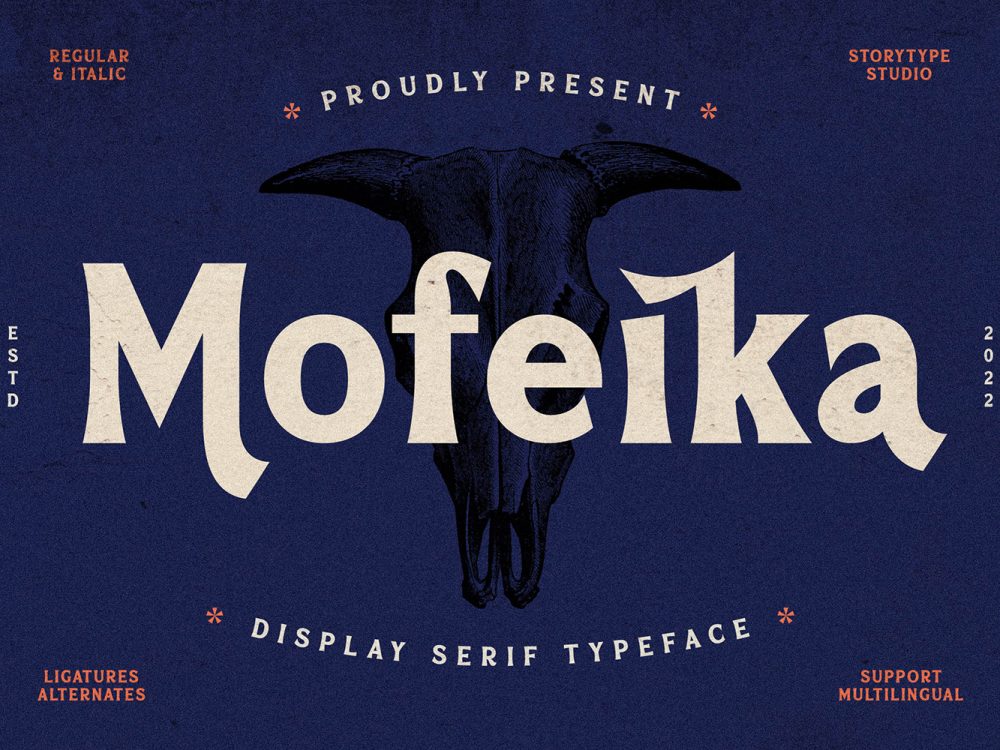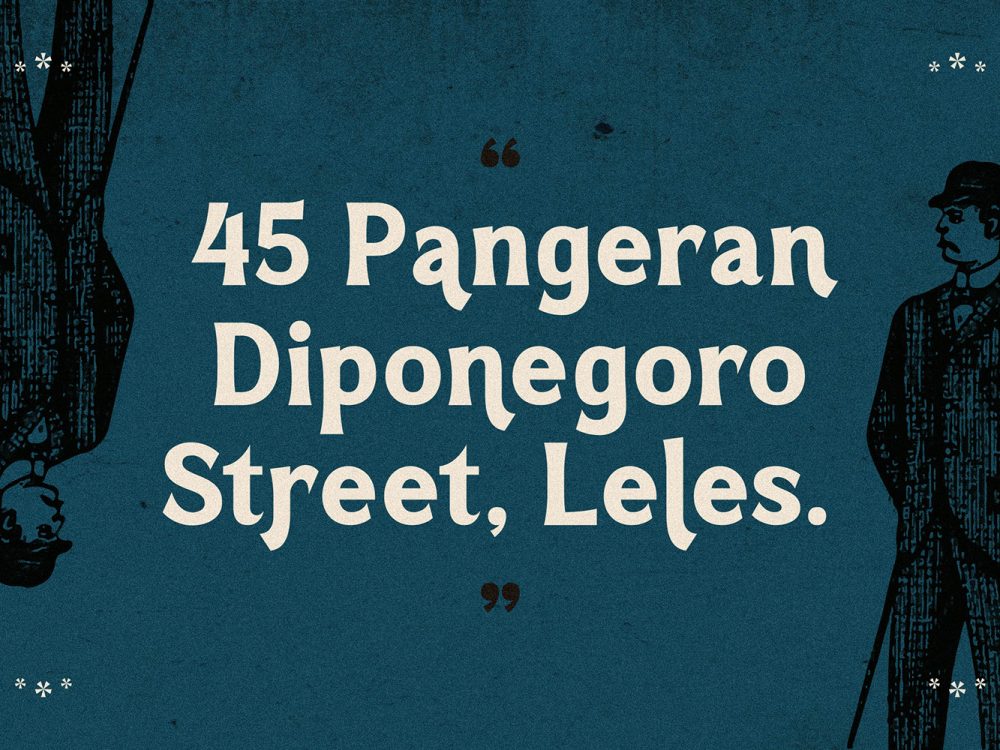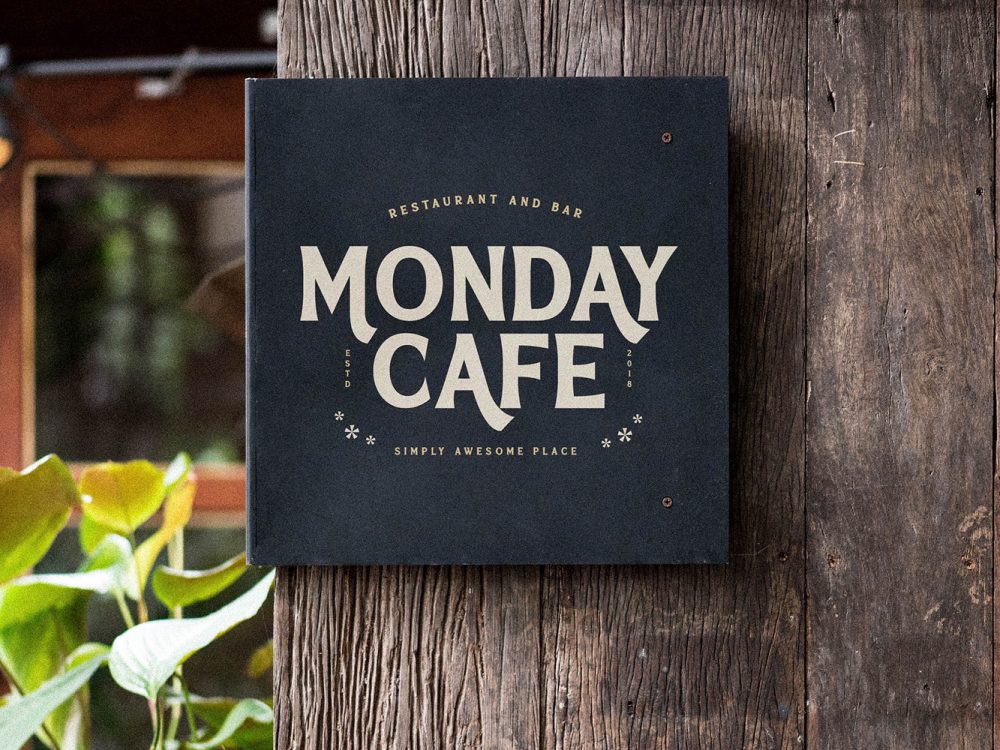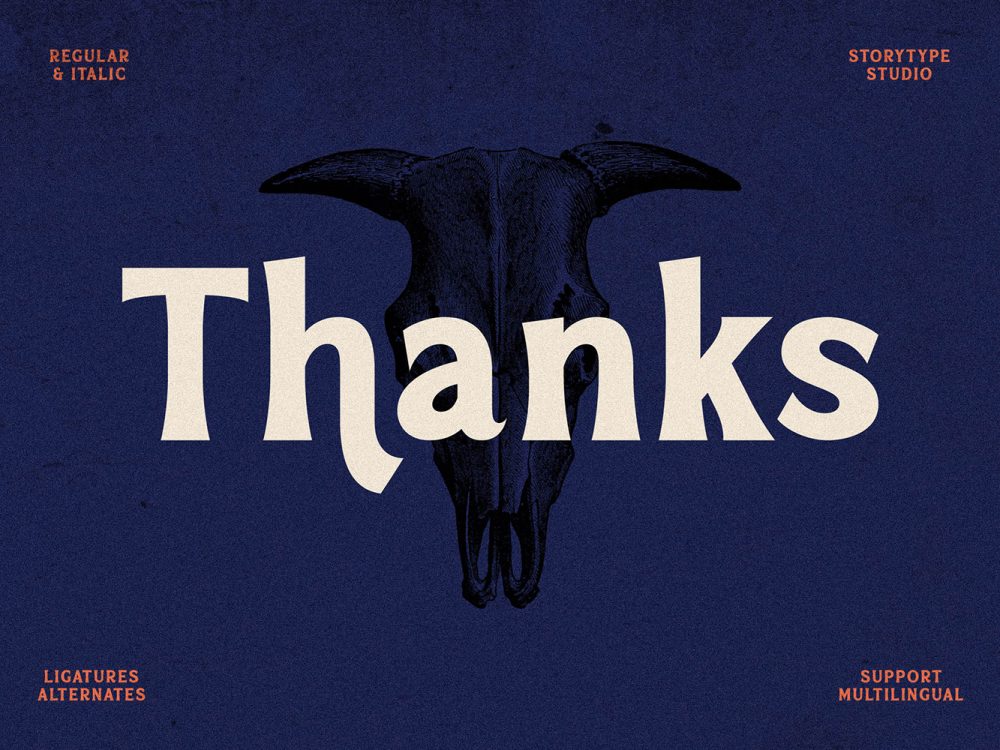
Mofeika Free Font
Mofeika Free Font is a modern and classic serif font with a unique style. This typeface is perfect for an elegant logo, book or movie title design, fashion brand, magazine, clothes, lettering, quotes, and so much more. If you like it don’t forget to check out the full version.